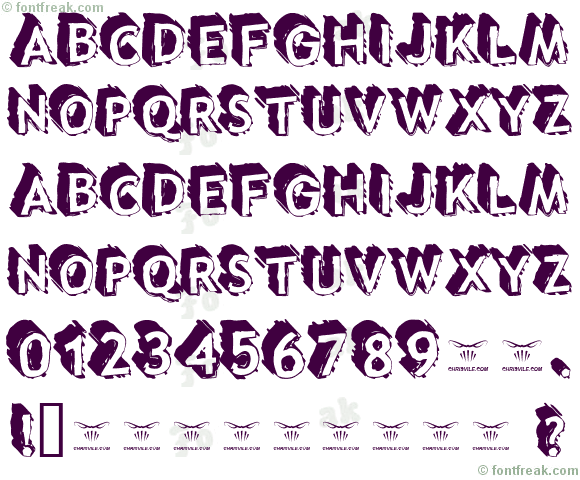
Taco Truck Militia
Taco Truck Militia is a unique display font designed by Chris Vile, characterized by its playful and bold aesthetic. This font belongs to the decorative category, making it ideal for projects that require a distinctive and eye-catching typographic style. The visual characteristics of Taco Truck Militia include a chunky stroke weight and a somewhat rugged feel, which gives it an organic look. The letters feature irregular edges and a slightly distressed appearance, enhancing its personality. The spacing is well-balanced, ensuring readability while maintaining a fun, informal vibe.
This font is particularly well-suited for a variety of creative applications. It shines in restaurant menus, especially those for food trucks or casual dining establishments, where a lively and welcoming atmosphere is essential. Taco Truck Militia also works wonderfully for event flyers and promotional materials, making it a great choice for food festivals or community events. Additionally, it can be effectively utilized in social media graphics and content creation, appealing to digital marketers looking to attract attention. Graphic designers and small business owners will find this font especially appealing for branding purposes, as it captures a sense of fun and uniqueness.